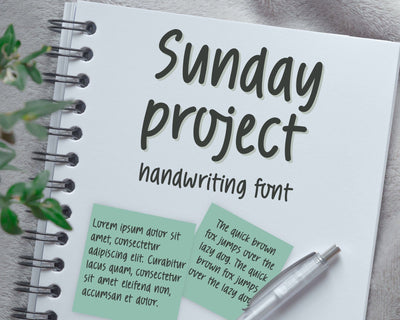
Sunday Project - Handwritten Font
Sunday Project is a sweet and friendly handwritten font. You can use this font in various projects - blog posts, logos, branding, digital planner, digital notes, invitations, greeting cards, planners, digital journal, photo albums, study notes, school notes, college notes, decorations and much more. Its authentic look and feel will add a personal and realistic feel to your designs.
The font includes uppercase, lowercase, numbers, punctuations
(English only, no accented characters)